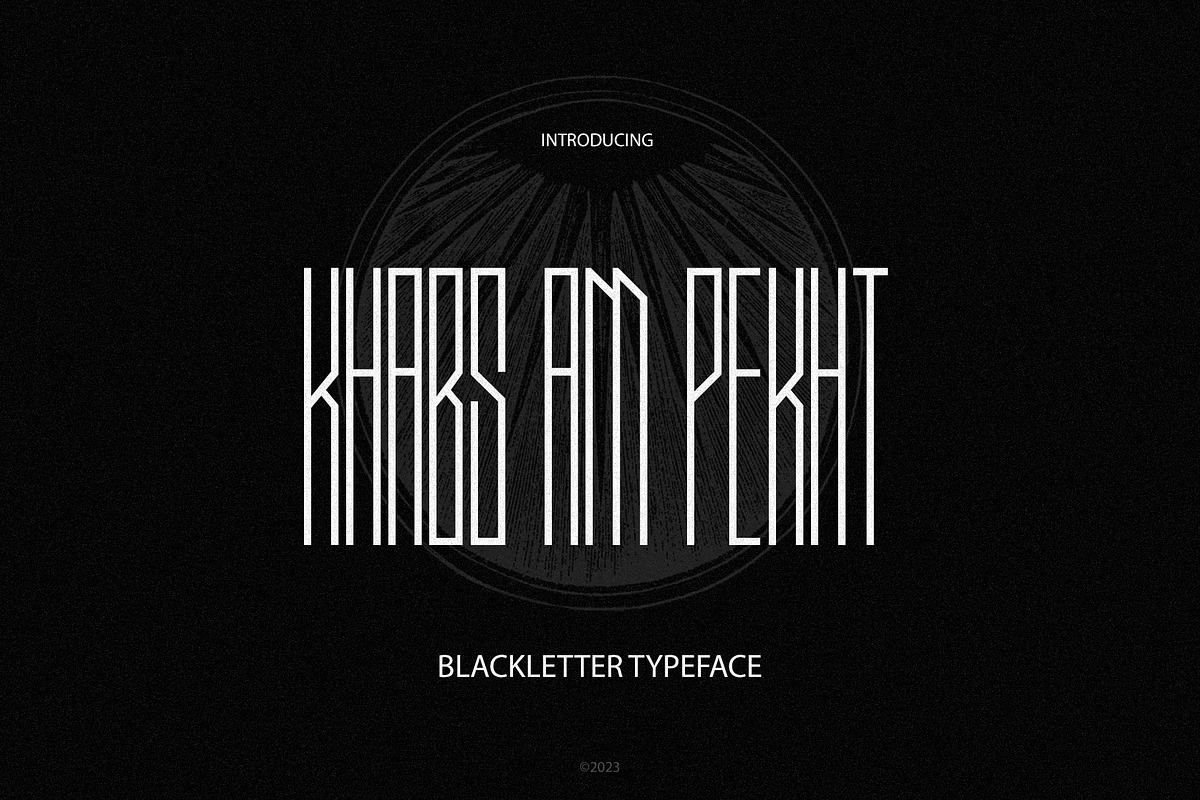
KHABS AM PEKHT Font Free Download is a mystical and bold typeface inspired by occult symbolism, ancient scripts, and esoteric aesthetics. Its unique letterforms and arcane presence make it ideal for book covers, ritual-themed posters, dark branding, metal band logos, and magical design projects that demand something truly otherworldly.
Whether you’re designing for mystic themes or looking to make a strong, spiritual visual statement, KHABS AM PEKHT delivers dramatic energy and mysterious elegance in every glyph. This is the perfect font for designers who dare to venture beyond the ordinary.